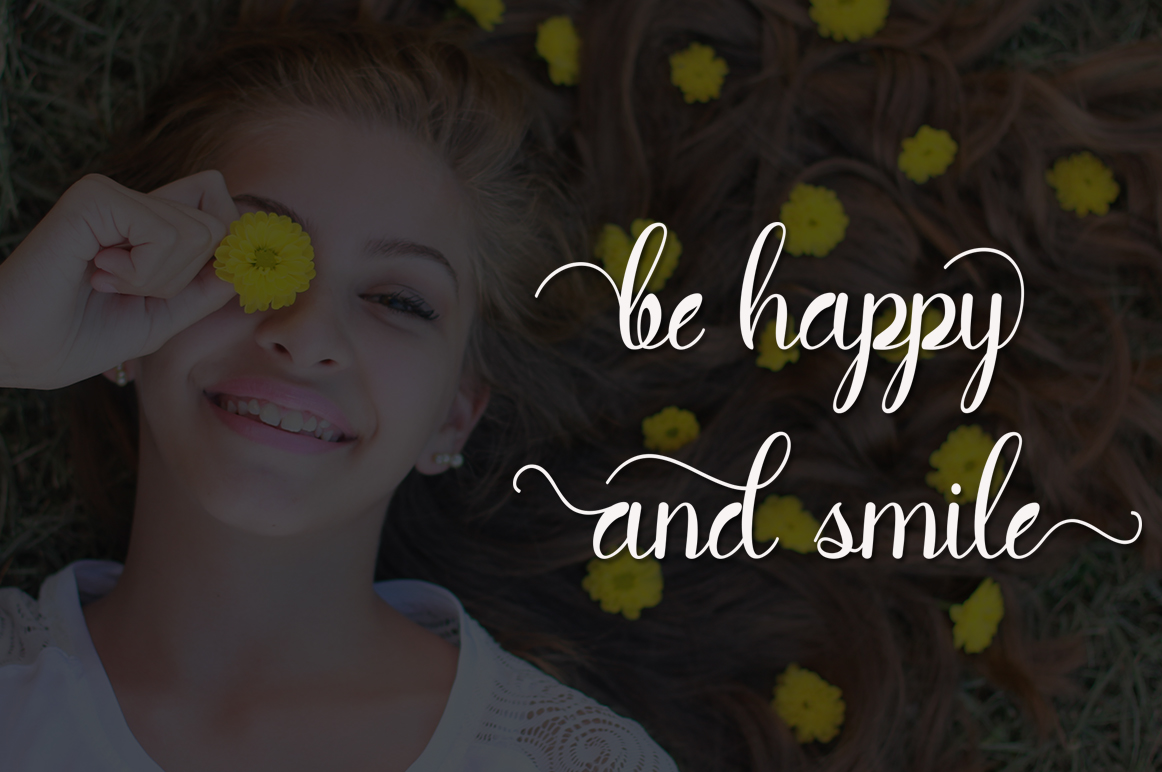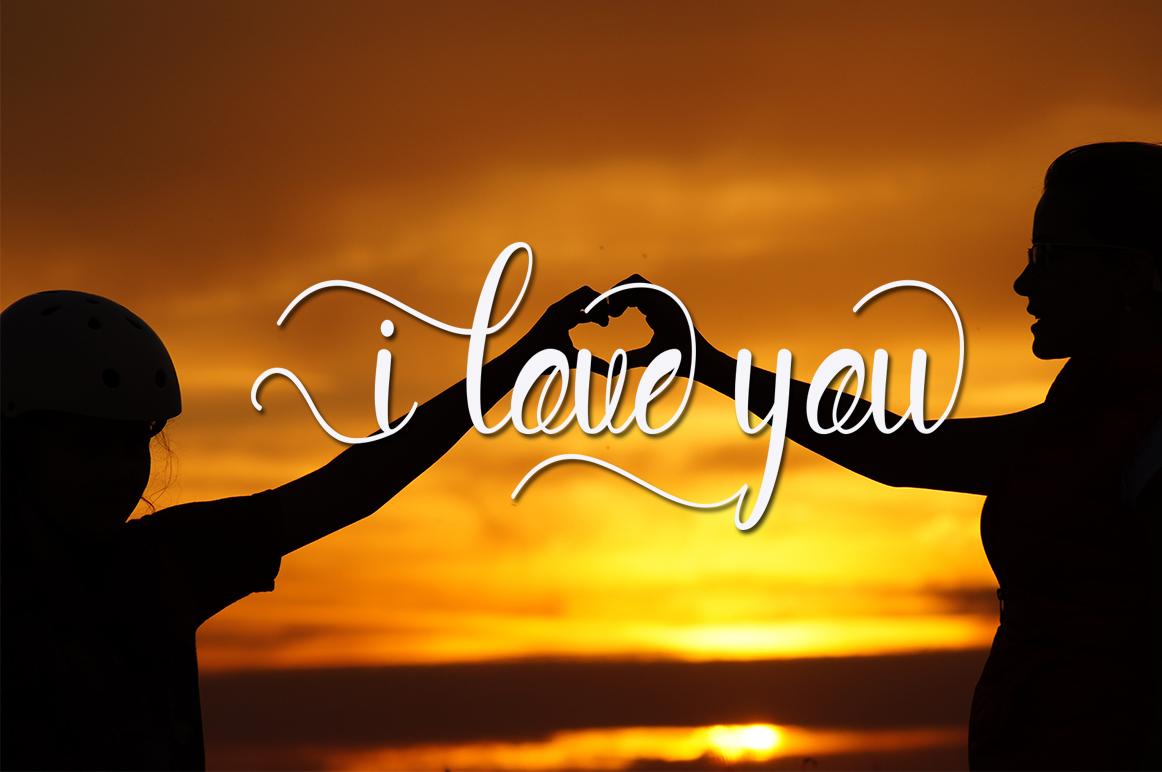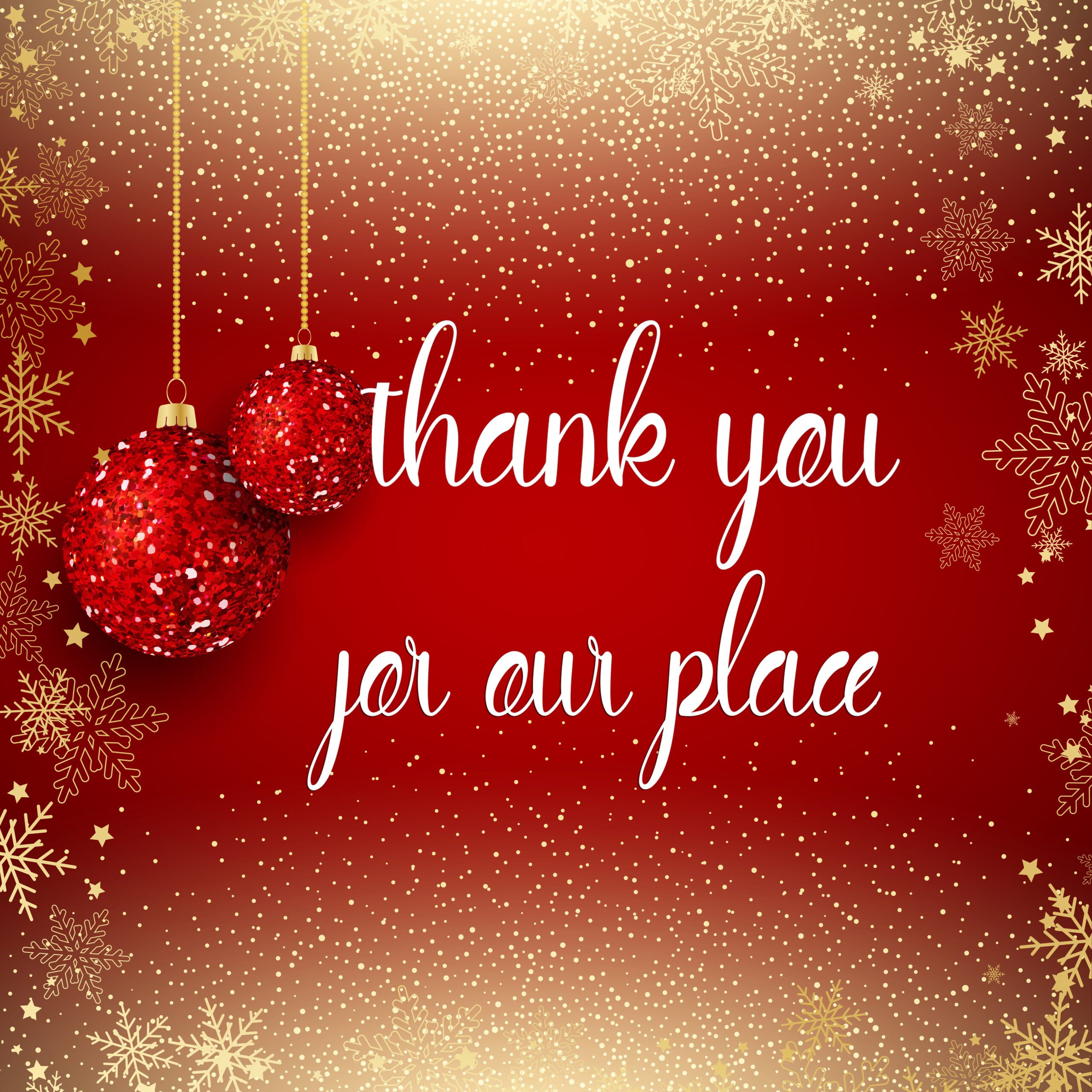
Nayla Font
About Nayla Font
Nayla is a gorgeous script font, one that is both defined by movement and style. Nayla has a very unique style of calligraphy, making it incredibly suitable for use in the work of modern design.